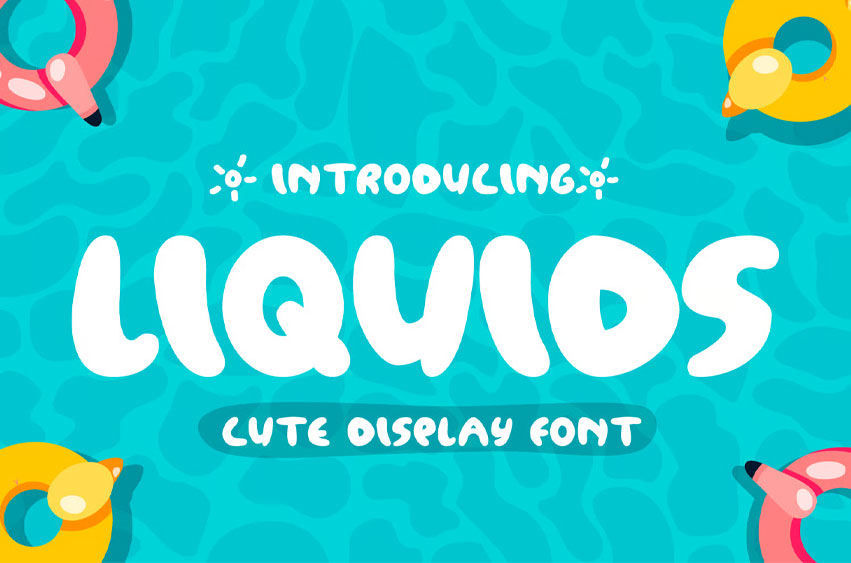
Liquids Font
Liquids Font Cute & Simple font that fits perfectly in to anything. Its casual charm makes it look very down to earth, easy to read and, in the end, very versatile. Pricilial will look amazing in any context, whether used in a busy background or as a standalone headline!